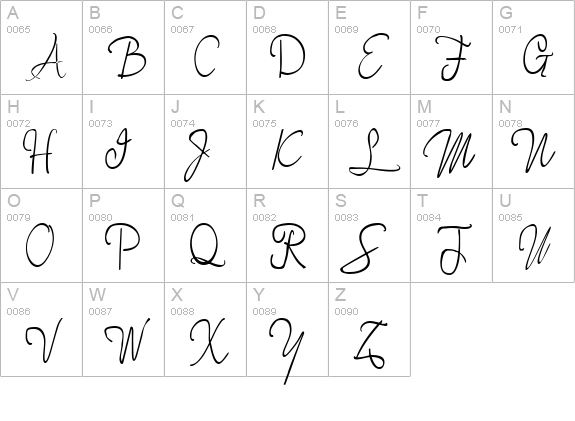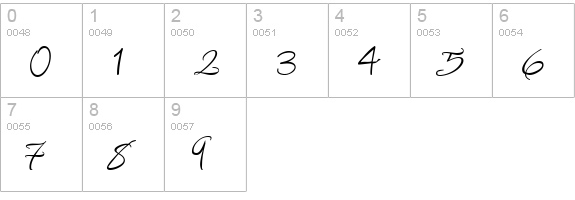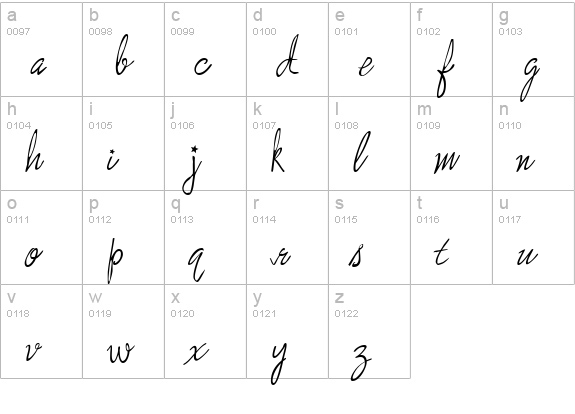
More Enchanted Prairie Dog Font Details
More Enchanted Prairie Dog font is a whimsical and charming typeface that exudes a sense of playfulness and magic. Its curly, hand-drawn style gives off a delightful and enchanting vibe, making it perfect for projects that require a touch of fantasy and imagination. This font is not only visually appealing but also versatile, suitable for a wide range of design projects such as invitations, posters, greeting cards, and more. Its unique and quirky look will surely capture the attention of your audience and add a special touch to your designs. And the best part? More Enchanted Prairie Dog font is completely free to download at FontsMarket.com! So go ahead and add a sprinkle of magic to your creations with this delightful typeface. It's sure to bring a smile to anyone who sees it.